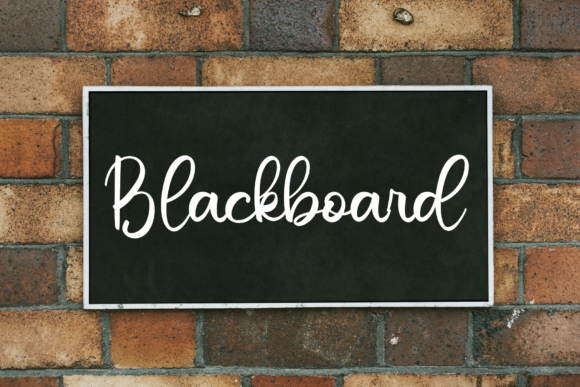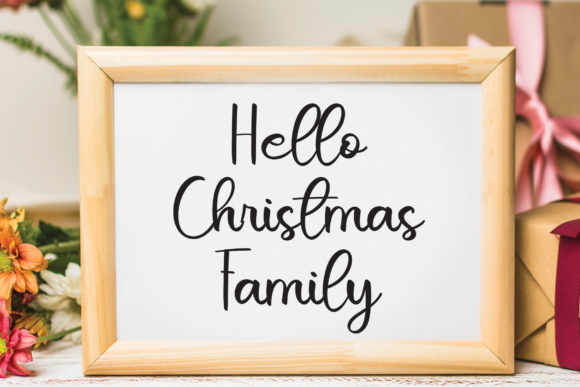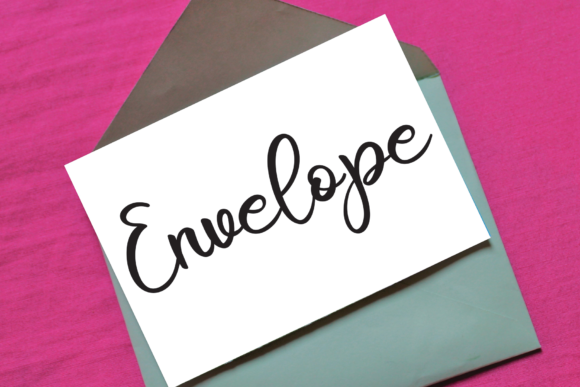
Yellow Font
Introducing a sweet, romantic, and beautiful script font that encapsulates elegance with its enchanting curves in every letter. This font goes beyond traditional typography, becoming a visual expression of romance and beauty, making it an ideal choice for projects that aim to evoke emotions and captivate the audience.
The meticulously crafted curves in each letter contribute to the font’s visual appeal, creating a charming and delightful experience. Whether employed in wedding invitations, love letters, or any design requiring a touch of romance, this script font becomes a crucial element in conveying a sense of beauty and tenderness.
Setting it apart is its PUA encoding—a feature designed to enhance user accessibility. With this encoding, designers can effortlessly access all the glyphs and swashes, ensuring a seamless and user-friendly experience. This accessibility opens up a realm of creative possibilities, allowing for the exploration of various stylistic elements without limitations.
Beyond its visual allure, this script font becomes a storyteller in the realm of design. Its beautiful curves and romantic aesthetic make it particularly well-suited for projects aiming to create a visually captivating and emotionally resonant experience for the audience.
In the dynamic world of design, where conveying emotions is as crucial as visual aesthetics, this script font stands out. It goes beyond being a font and transforms into an expressive element that elevates ordinary text into a visual masterpiece. The PUA encoding not only ensures a visually pleasing outcome but also underscores the font’s user-friendliness and versatility.
In summary, this sweet, romantic, and beautiful script font is a harmonious blend of artistic expression. Its captivating curves and PUA encoding make it an indispensable tool for designers looking to infuse their projects with creativity and accessibility. Incorporate this font into your designs, and let it be the brushstroke that paints a canvas of elegance, leaving an indelible impression on your audience.